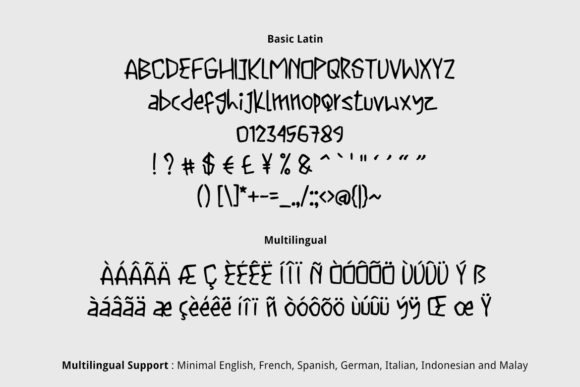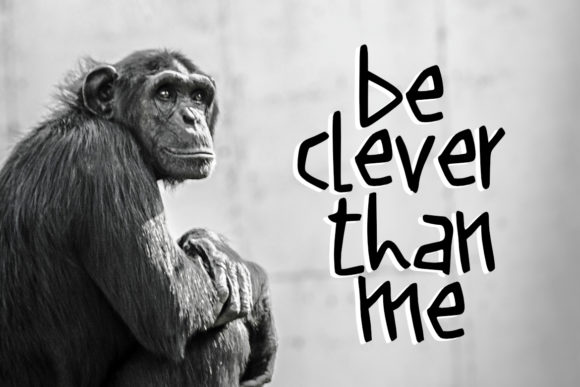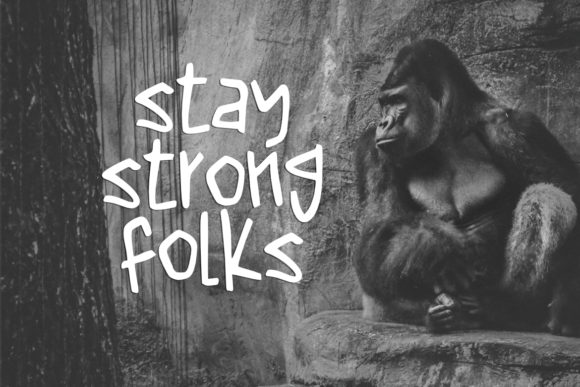
Introduction to Primata Font
Primata is a cute and quirky display font.
Lovely and childish, this font will look absolutely gorgeous on a variety of school projects or informal design ideas .
Key Features of Primata Font